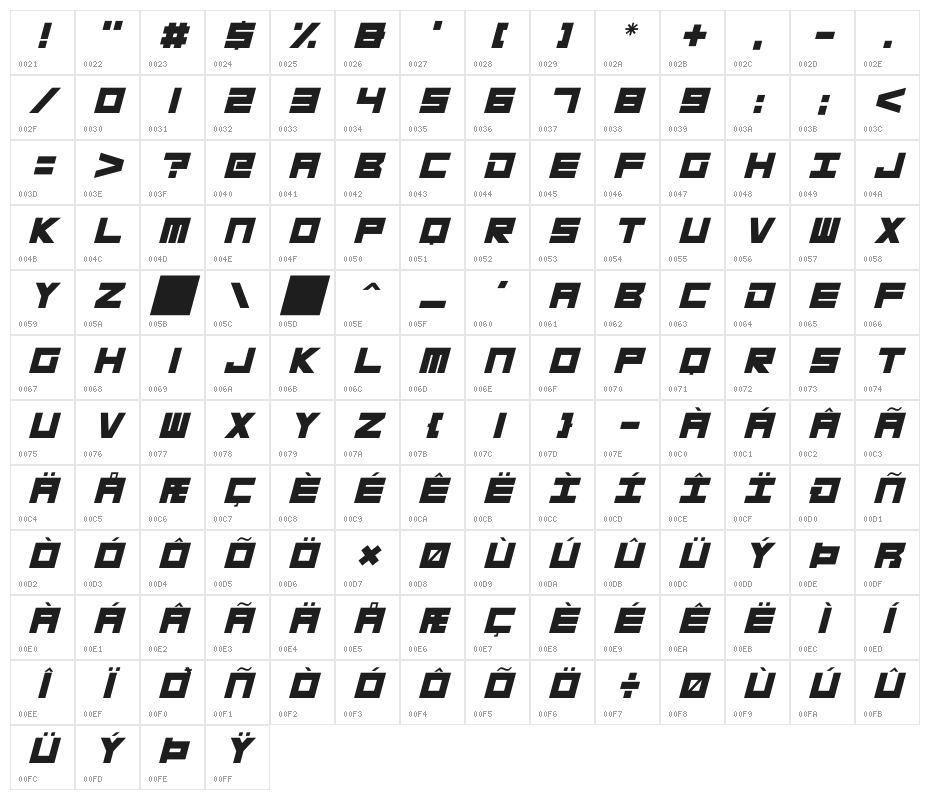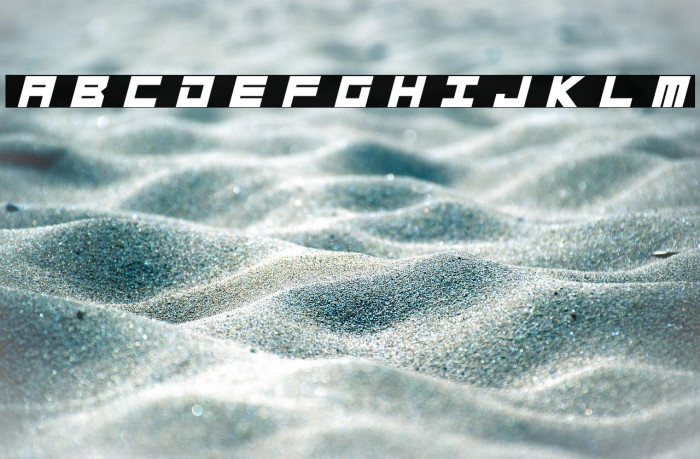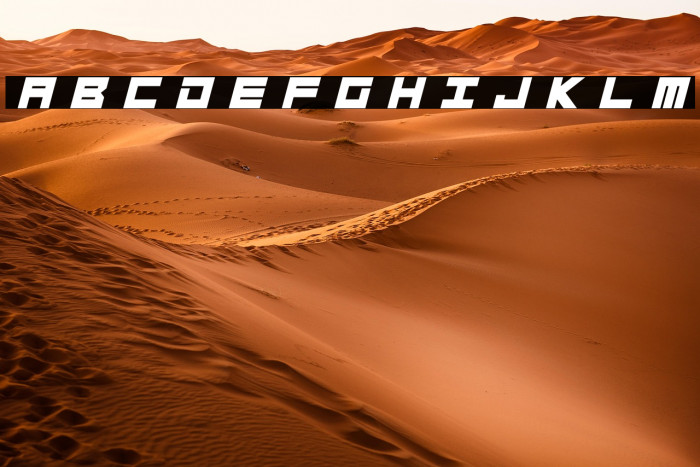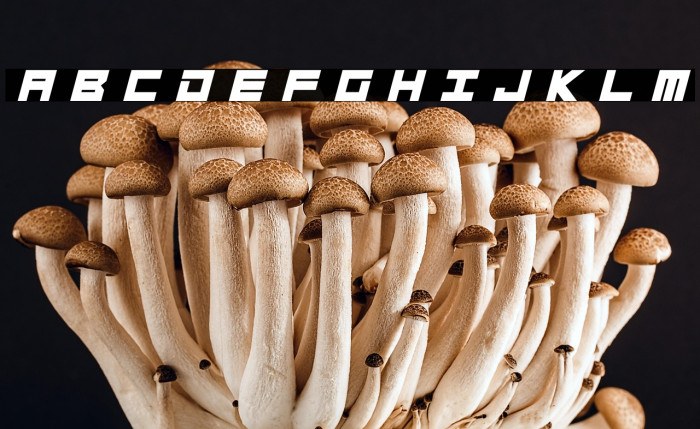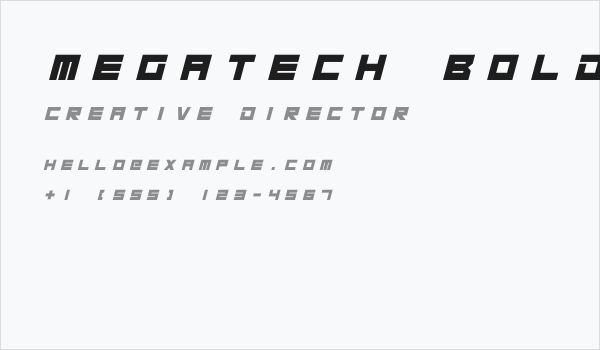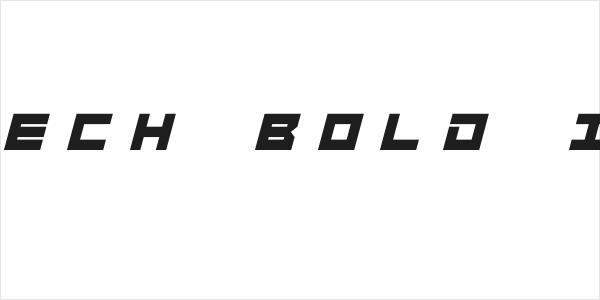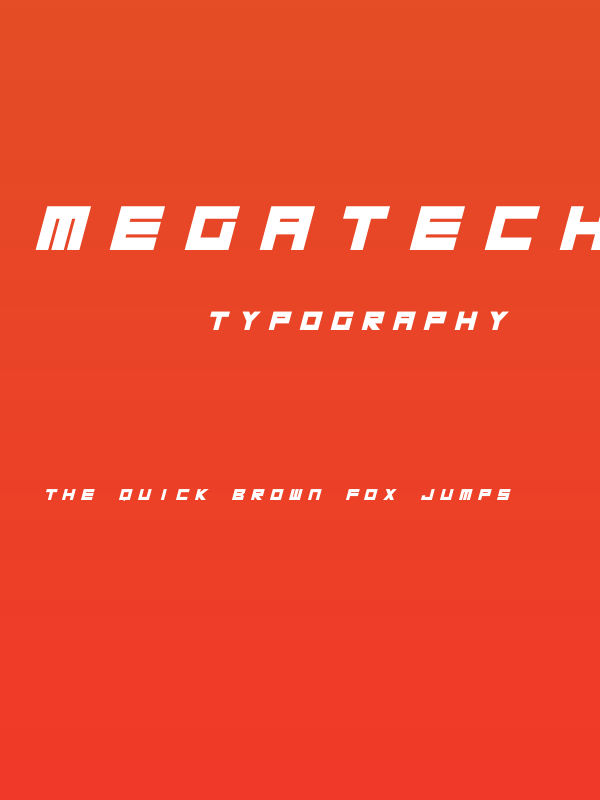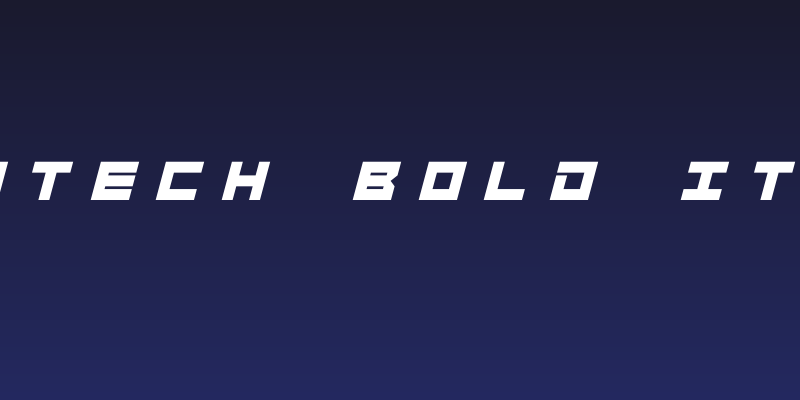
Megatech Bold Italic Font
Megatech Bold Italic Description
This font features a bold and italicized style with a futuristic and angular design. The characters are sharply defined with a strong geometric influence, giving them a dynamic and modern appearance. The uppercase and lowercase letters maintain a consistent slant, enhancing the italic effect. The numerals and special characters follow the same design principles, ensuring uniformity across the font. The overall look is sleek and tech-inspired, making it suitable for projects that require a contemporary and edgy feel.
| Proposed Projects | Ideal for technology branding, sci-fi movie posters, video game titles, and modern advertising campaigns. |